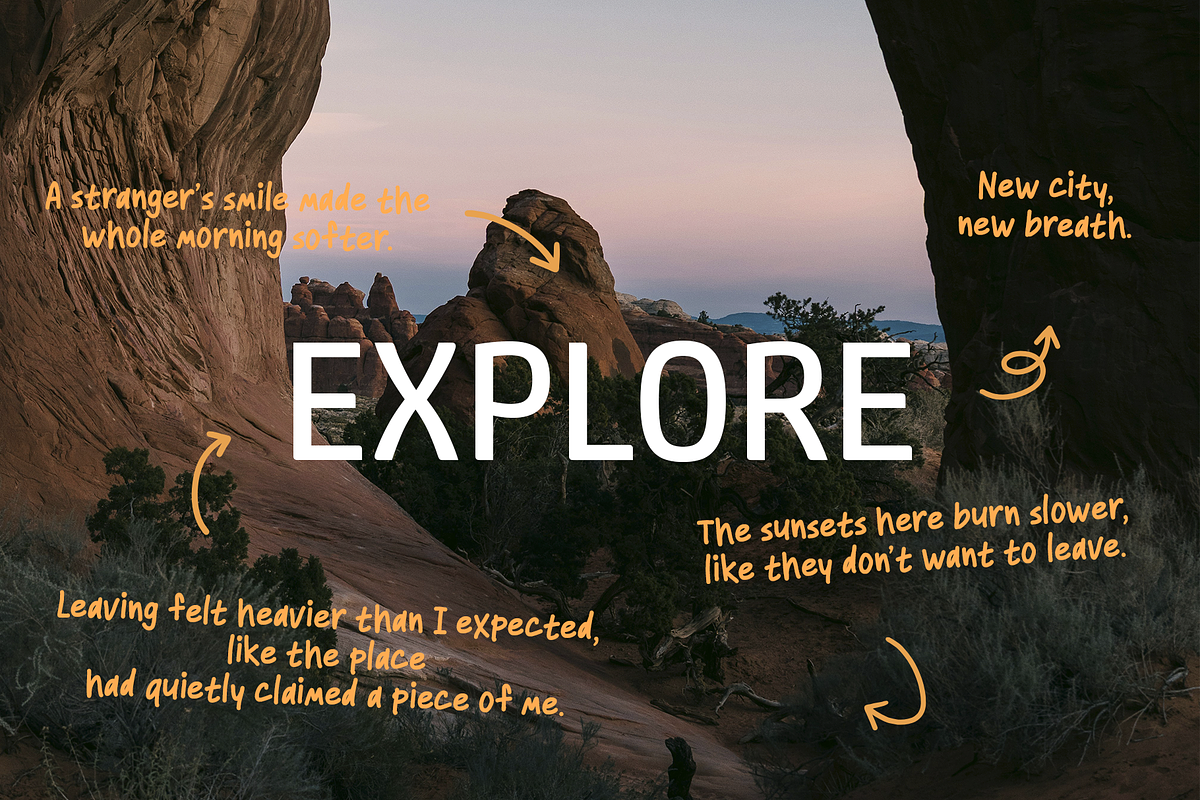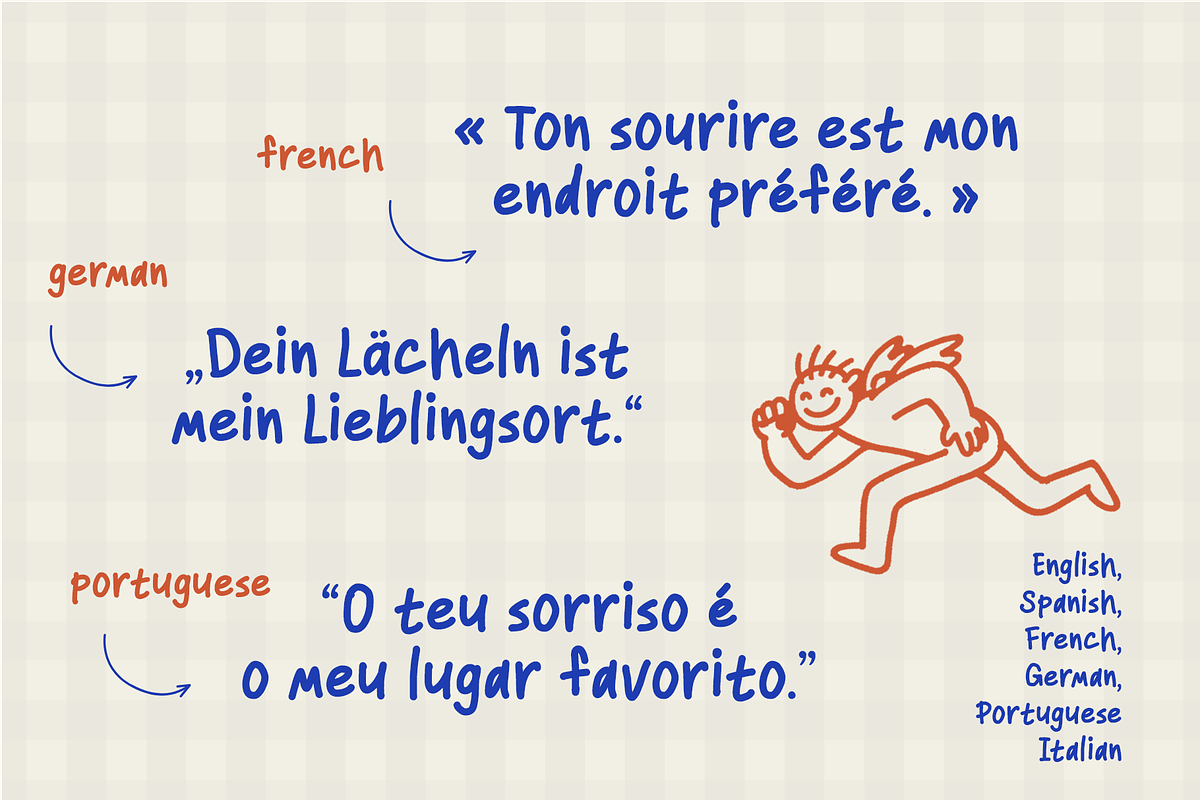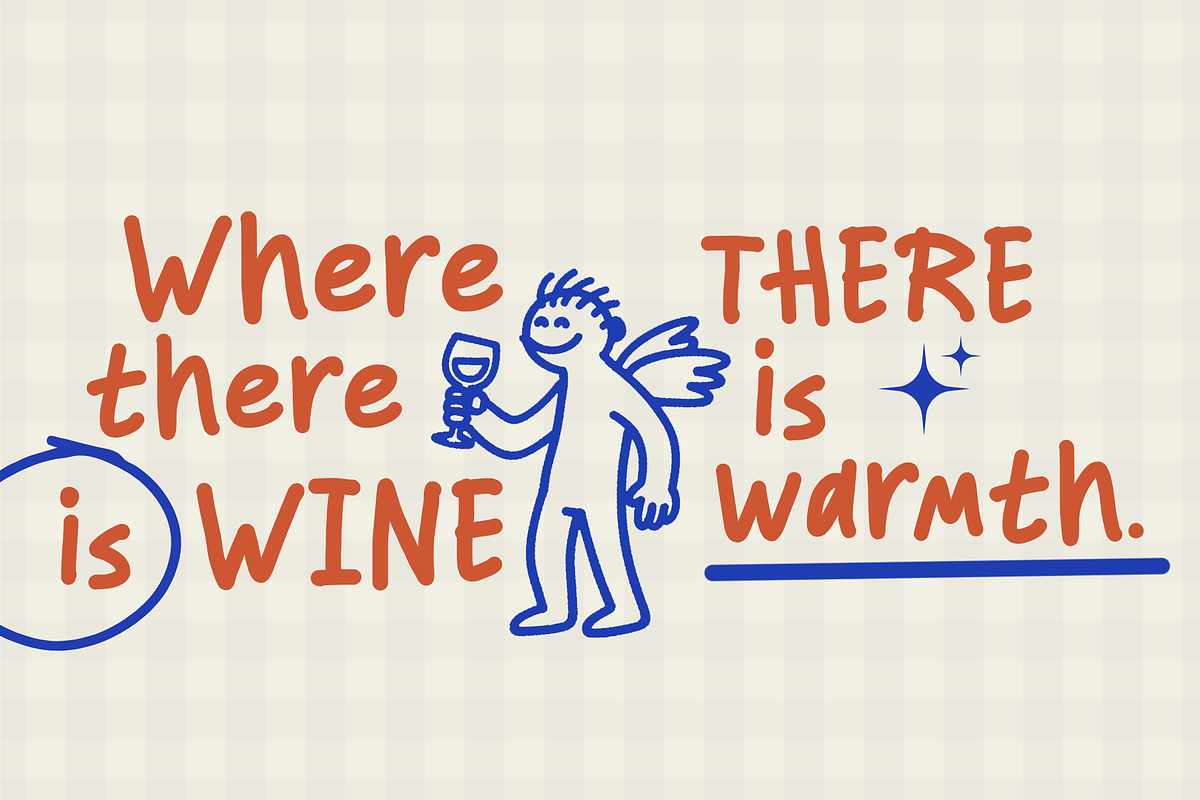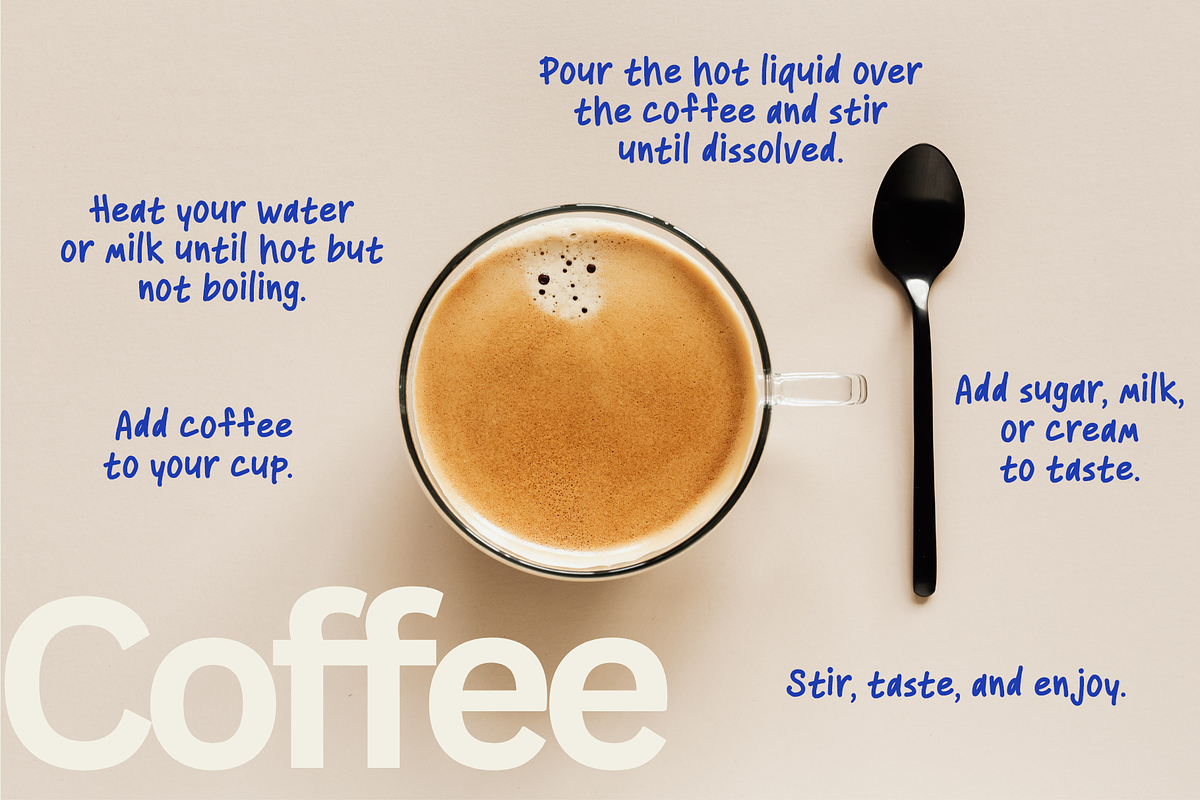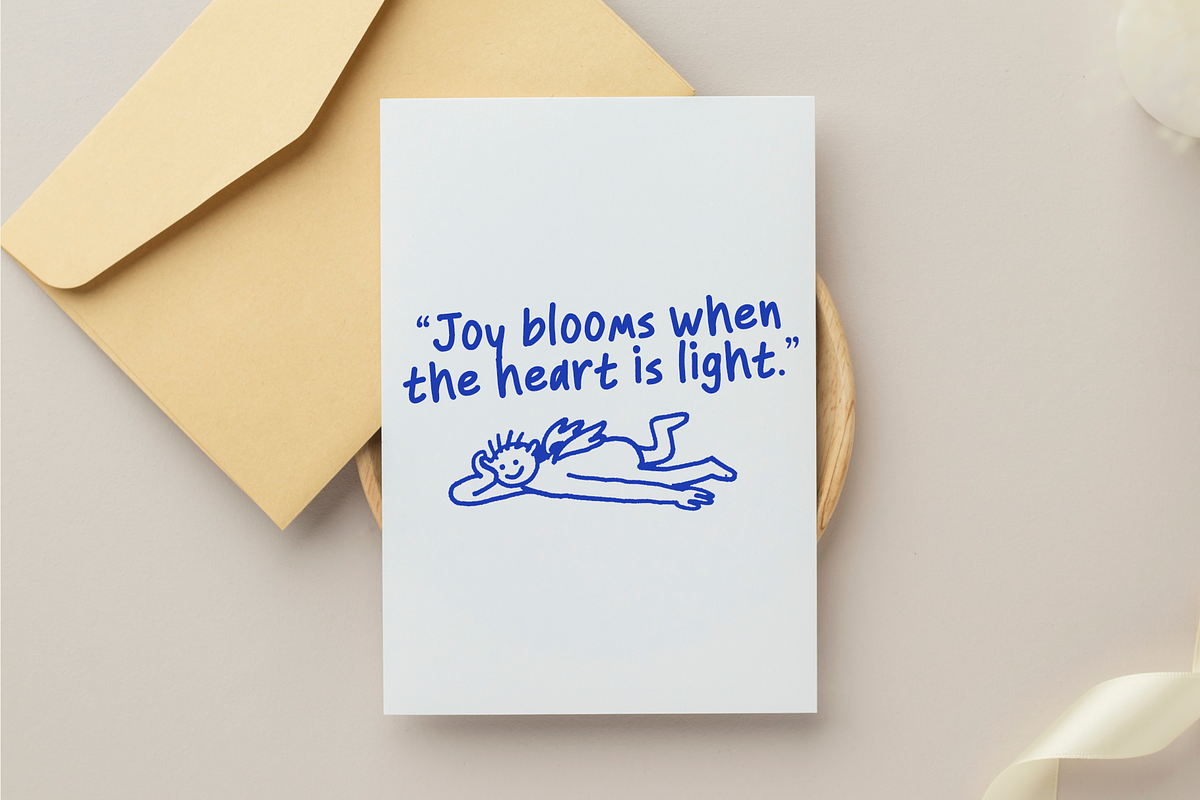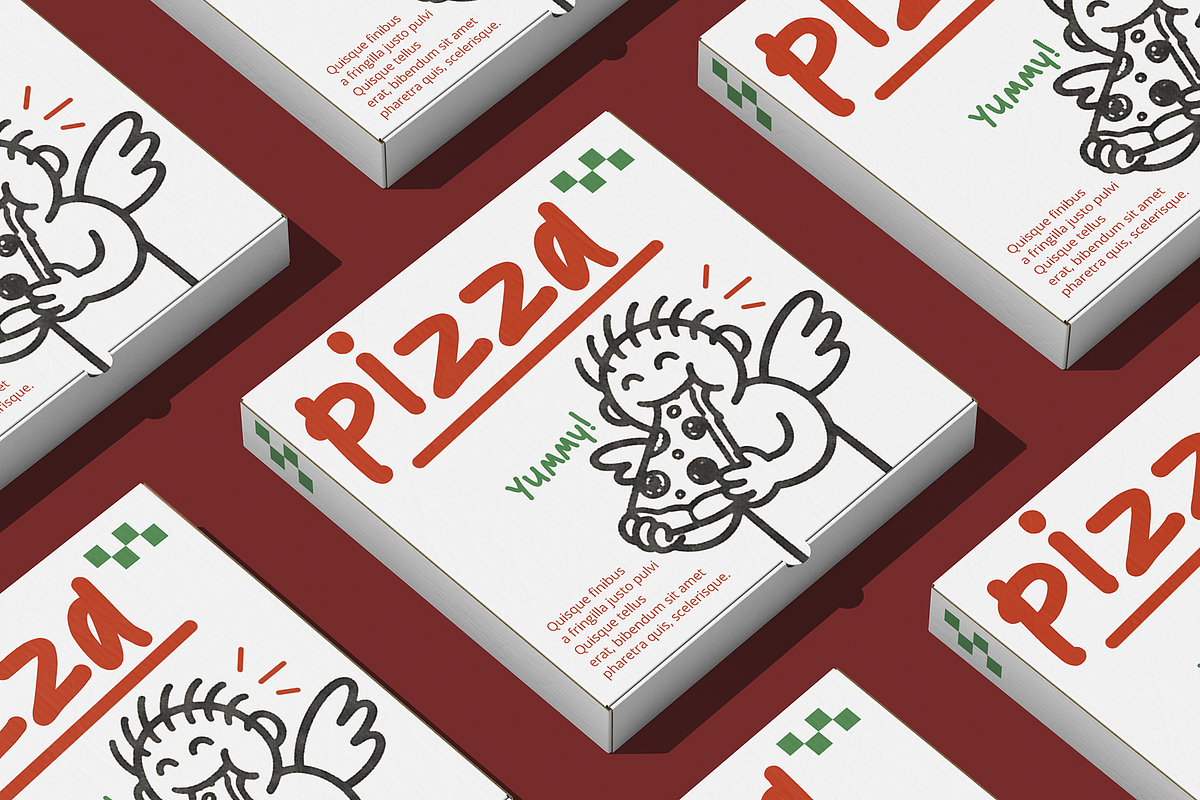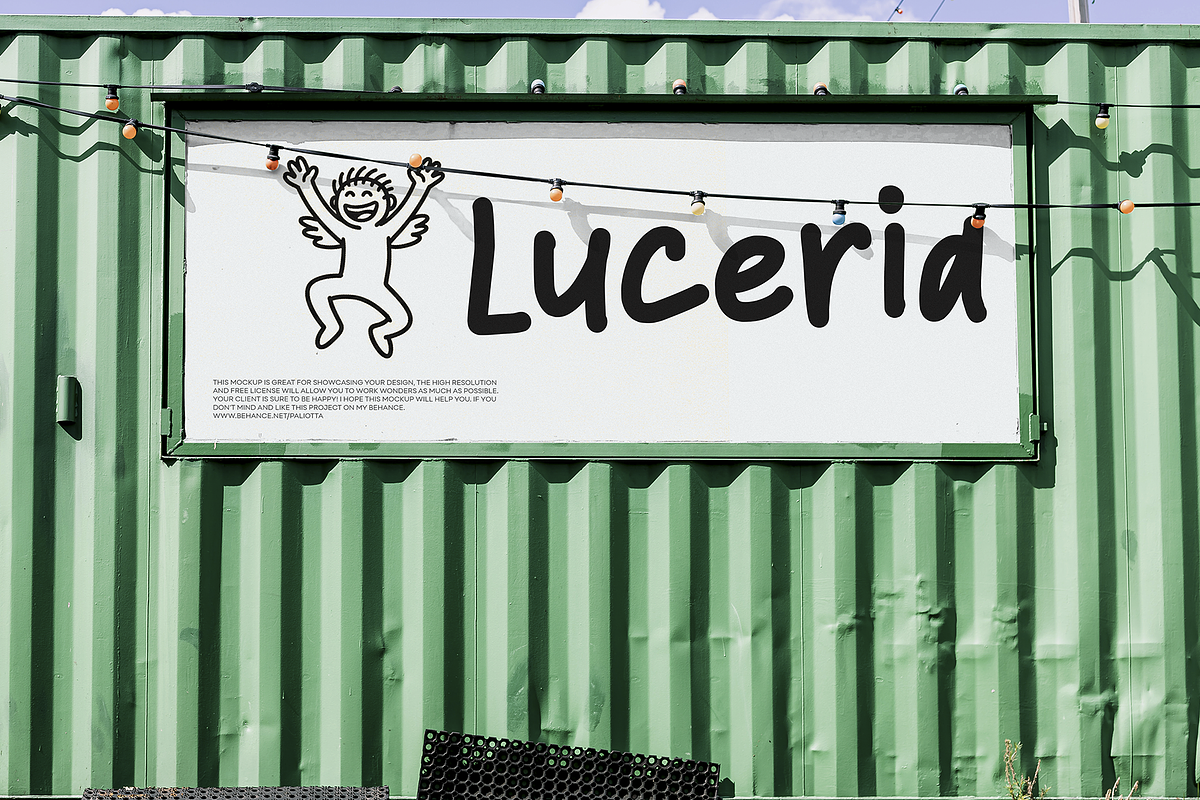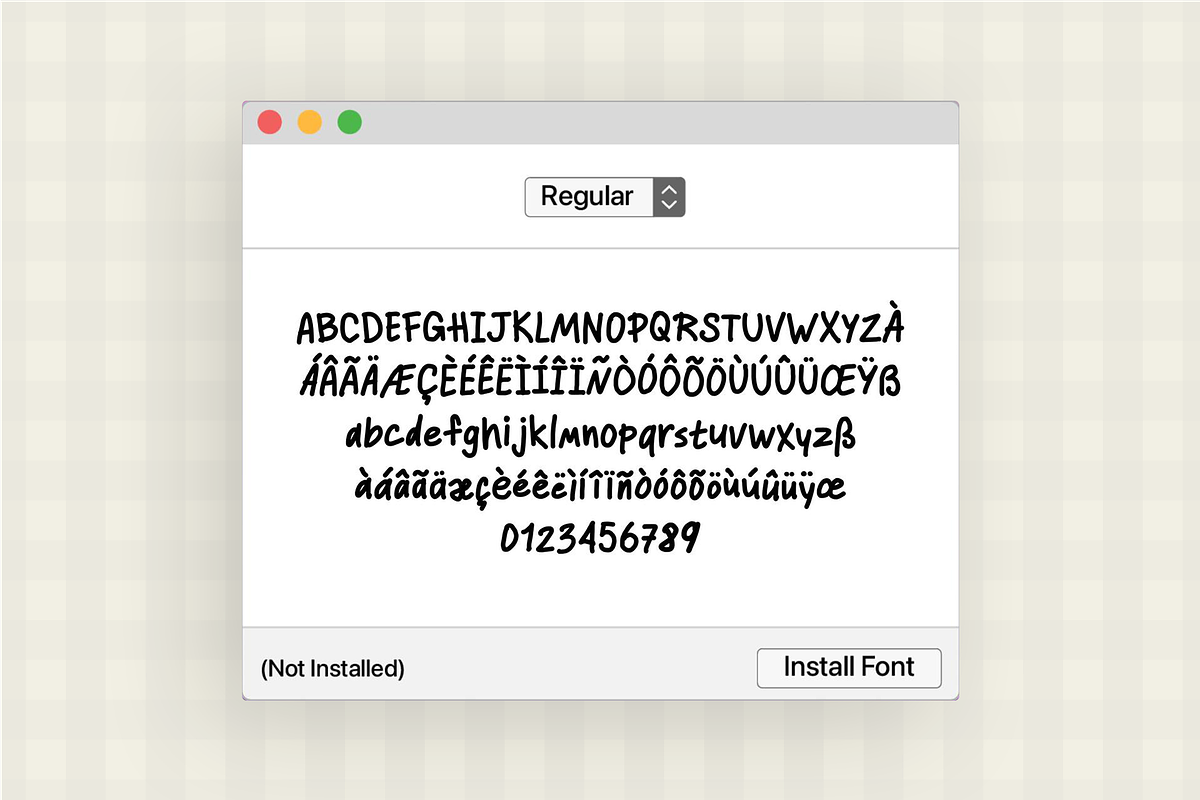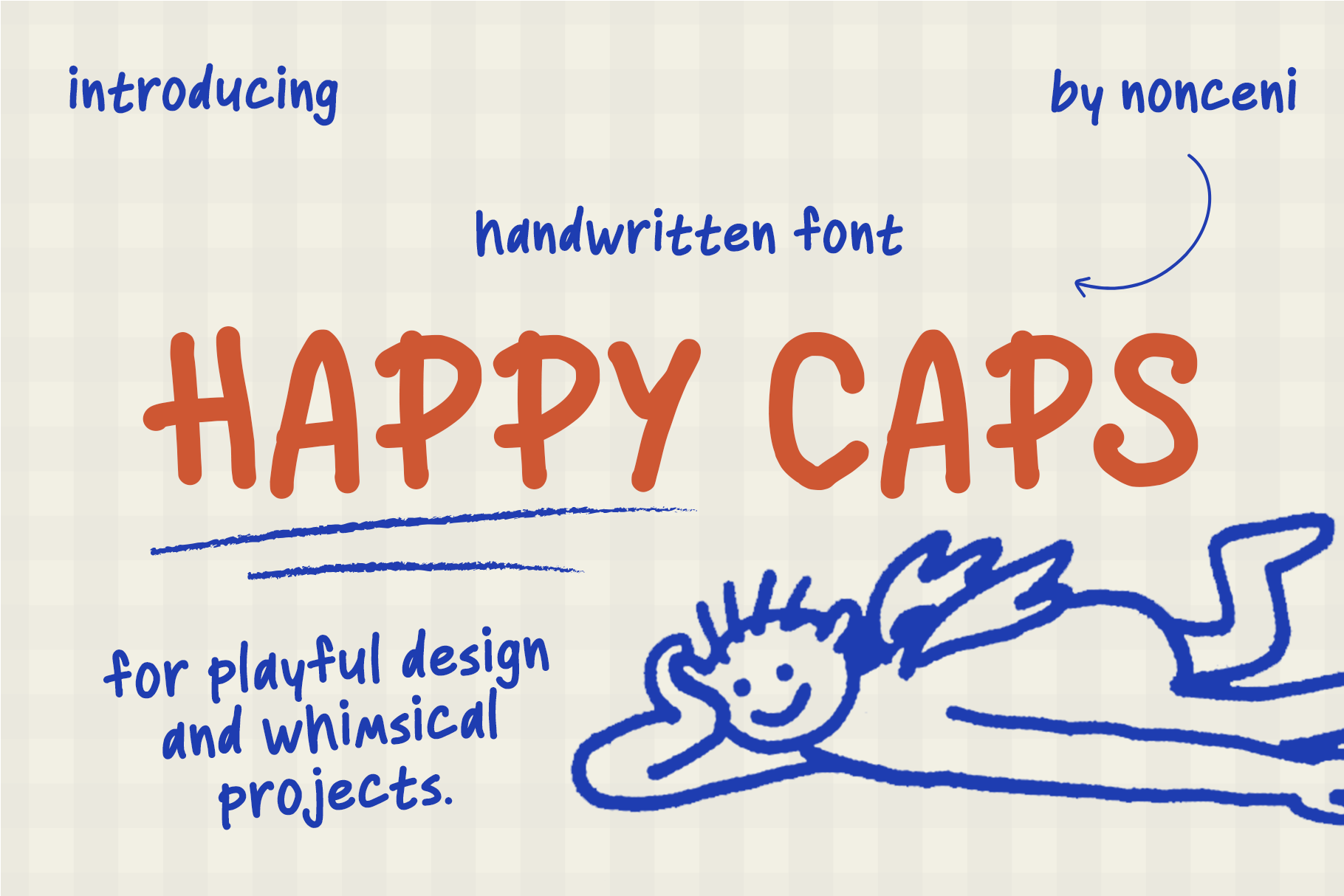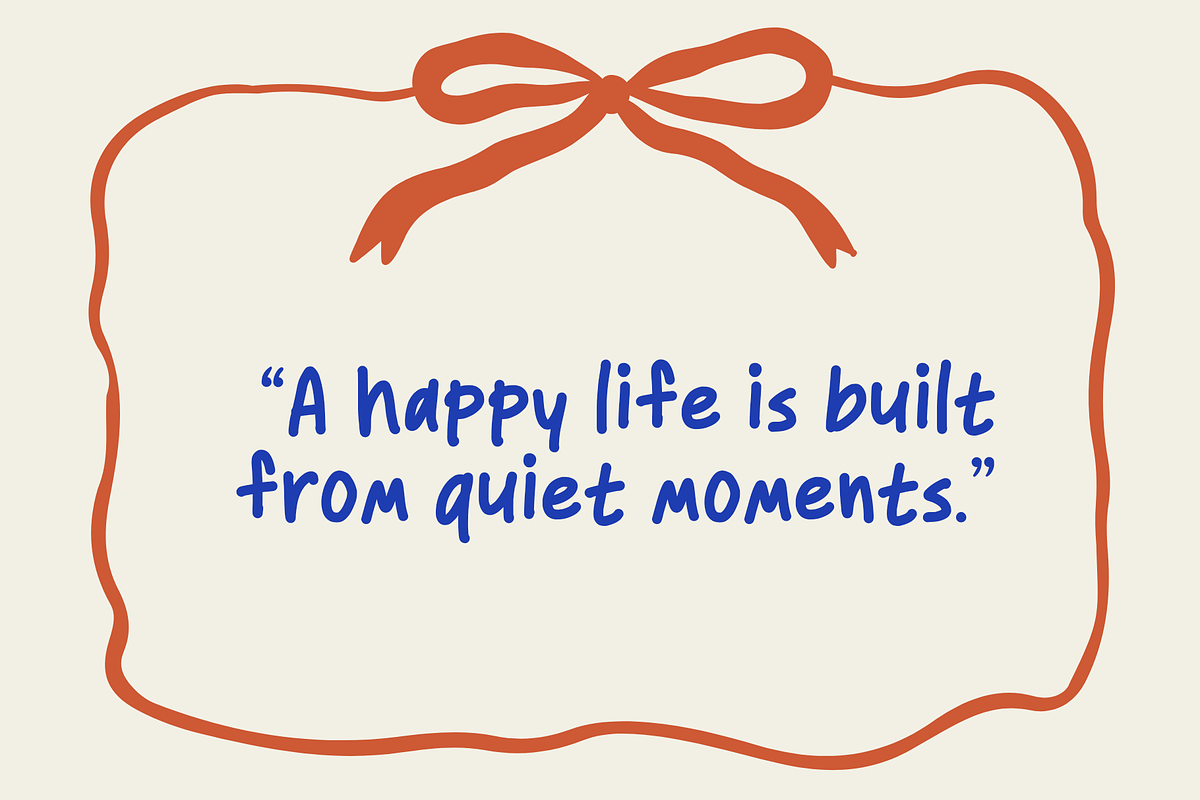
Happy Caps Handwriting Font
Happy Caps is a cheerful and whimsical handwritten font designed to bring a boost of personality and fun to your creative projects. This typeface features a bold, casual, and distinctly happy aesthetic, perfect for designs that need a touch of energetic charm.
With its slightly irregular baseline and thick, brush-like strokes, Happy Caps mimics genuine, joyful handwriting. The name says it all—this font radiates positivity and optimism!
Perfect For: Happy Caps is your go-to font for projects demanding a fun, friendly, and youthful vibe. It is ideally suited for:
Children's Branding & Products: Book covers, toy packaging, and apparel.
Social Media Graphics: Engaging quotes, announcements, and headers.
Party & Event Invitations: Birthdays, casual gatherings, and festive posters.
Merchandise & T-Shirt Design: Unique, eye-catching slogans and art.
DIY & Crafting Projects: Labels, greeting cards, and scrapbooking.